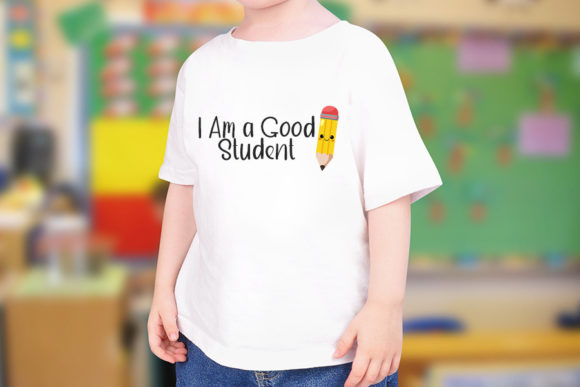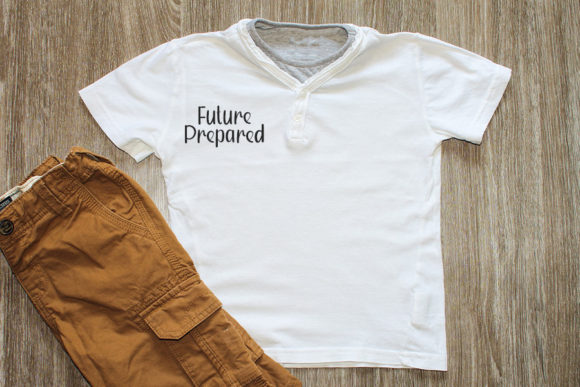
School is Back Font
db-ku.com - Script & Handwritten -- School is Back is a chic and natural script font with a relaxed theme. No matter the topic, this font will be an incredible asset to your fonts’ library, as it has the potential to elevate any creation.